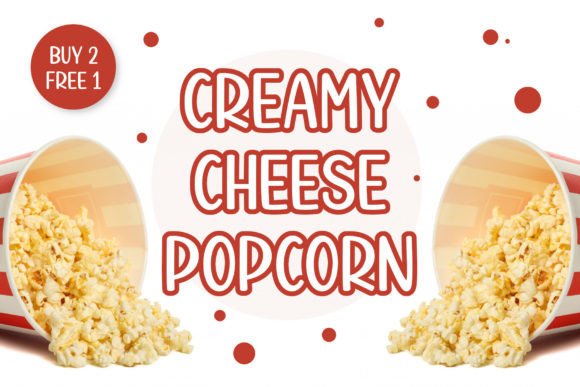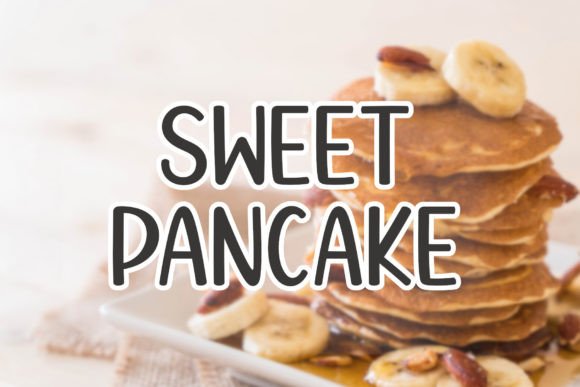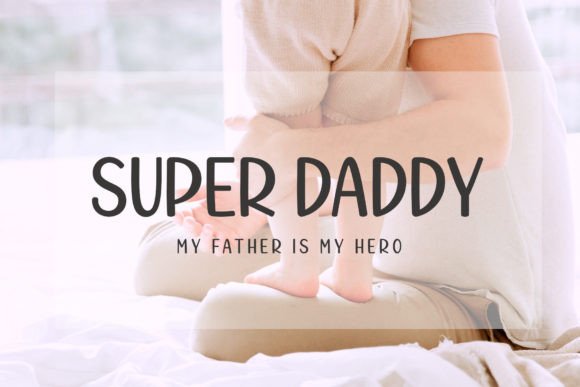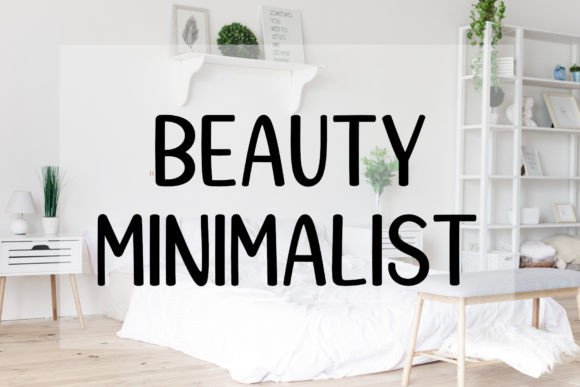
Kitchen Cookies Font
Kitchen Cookies is a sans serif font with a cute and quirky shape.
This font is suitable for use in several of your design projects such as posters, birthday cards, t-shirt designs, mugs, and tote bags, and can be used for various handmade creations.